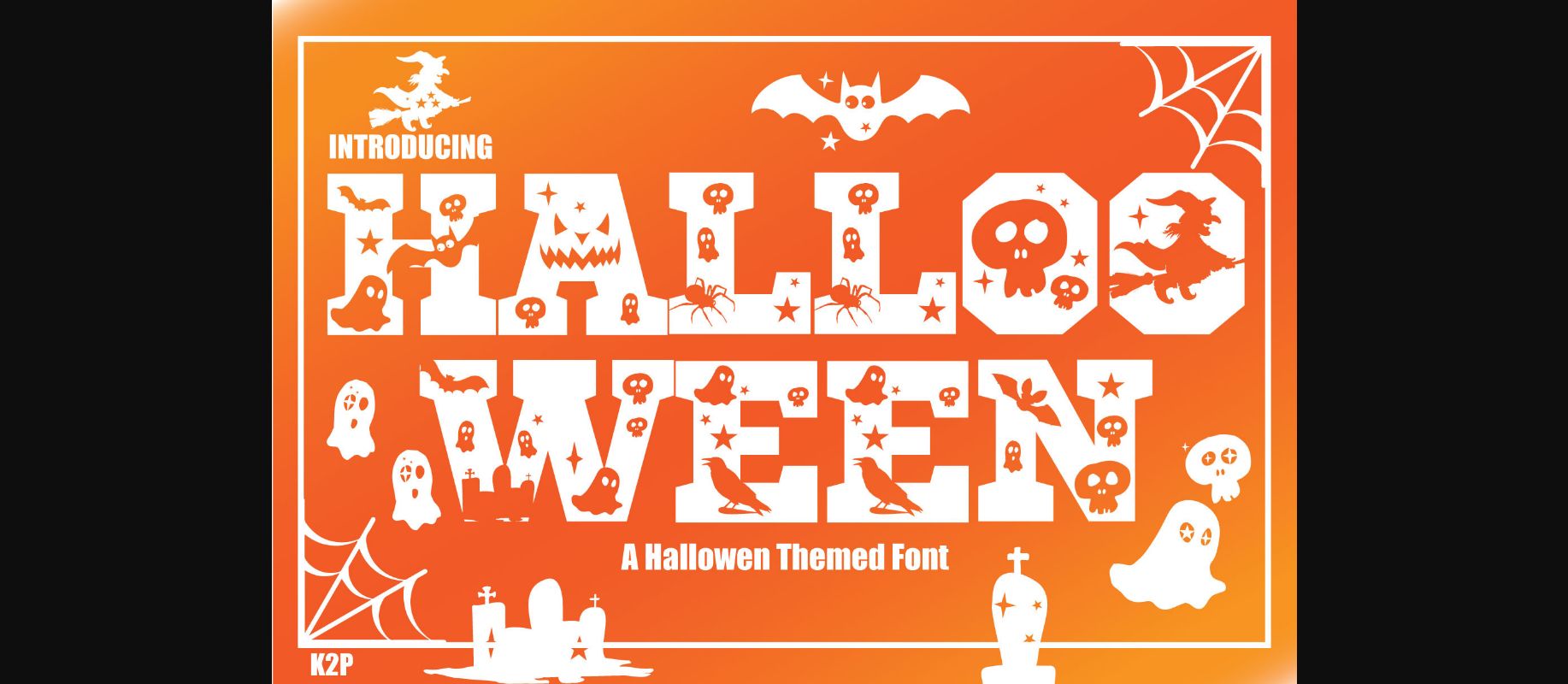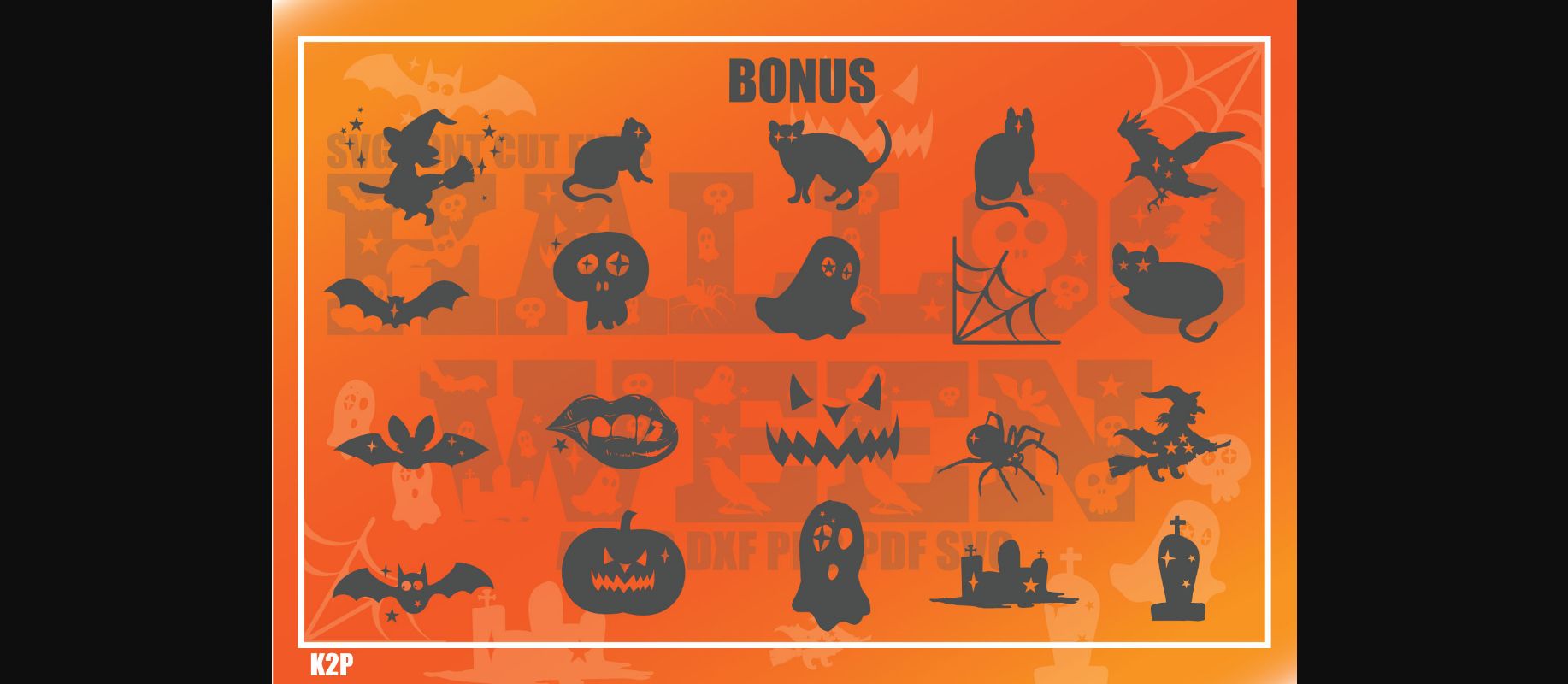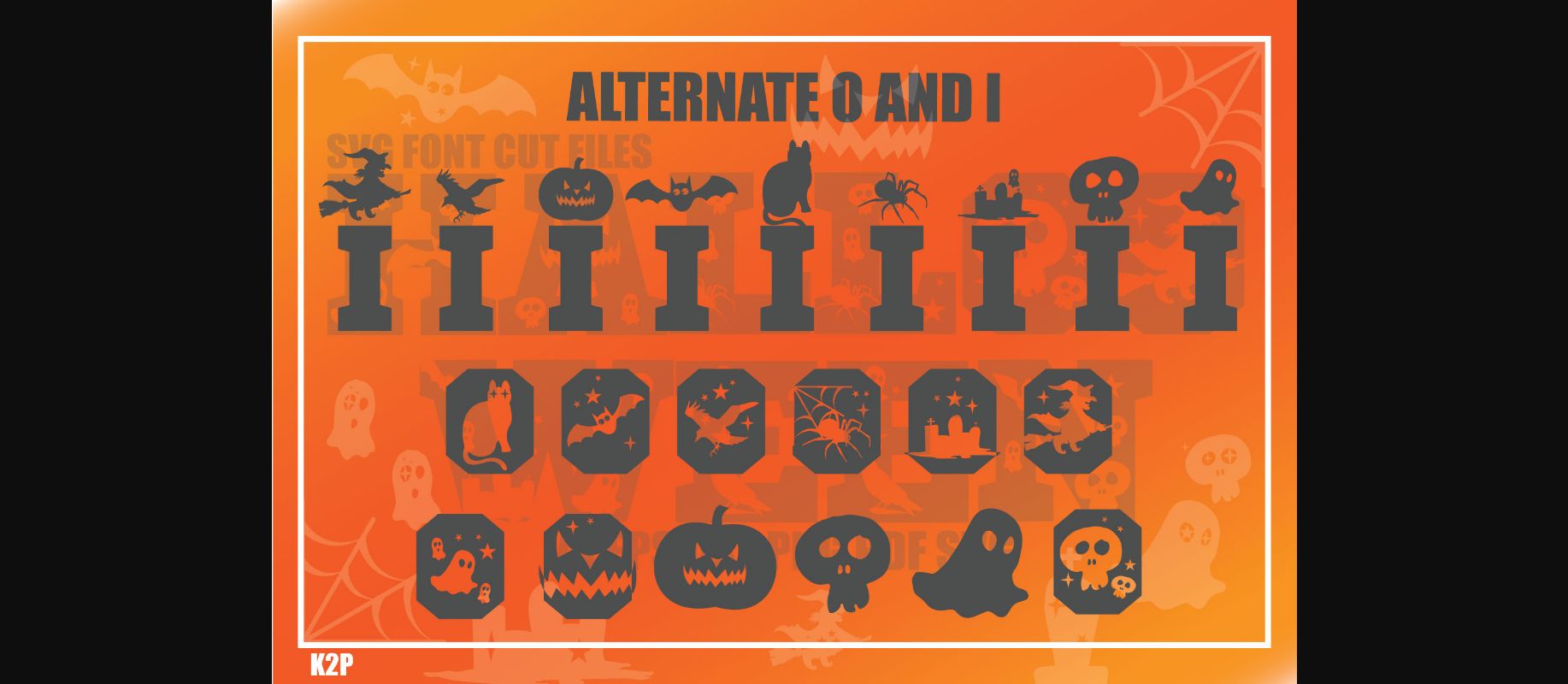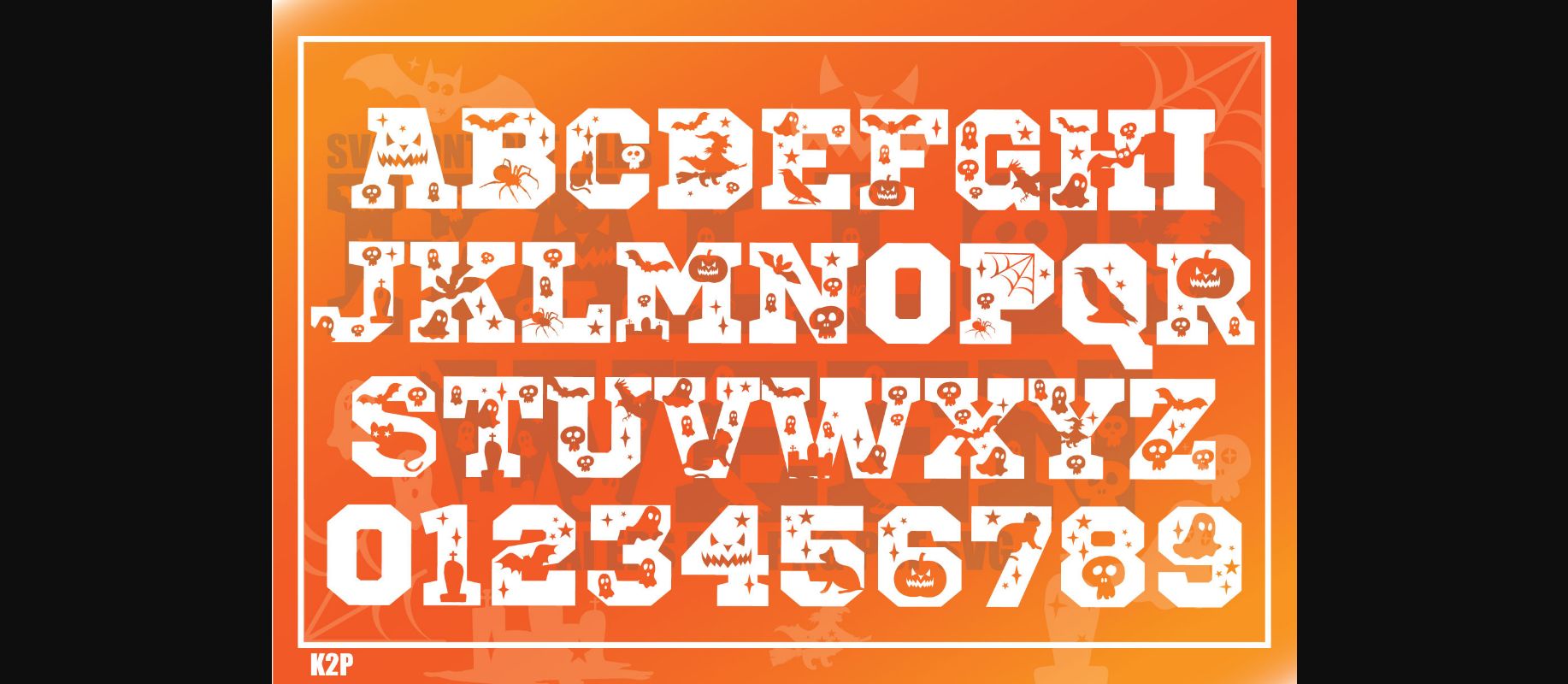
About Hallooween Font
Hallooween is a thick lettered and incredibly unique decorative font. It can be used for various design ideas, particularly those related to the Halloween Holiday. This font is PUA encoded which means you can access all of the glyphs and swashes with ease!